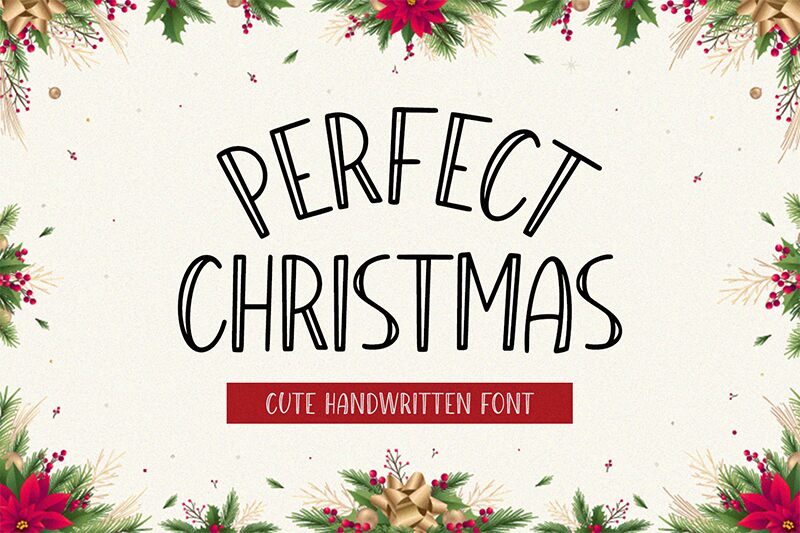
Perfect Christmas
Perfect Christmas font by Alpaprana Studio is crafted in a youthful and whimsical style, instantly adding the magic of the season to your designs. Its letters appear handcrafted with an informal charm which makes them both engaging and approachable. Without extra decorations, this font communicates casual elegance and festive mood so you can enjoy it all year round.
Bring a spark to your social media posts, party invitations, printed mugs for family gifts, colorful posters and children storybooks. With such a fresh modern design the free festive font can also be used in advertising projects including billboards and promotional flyers.